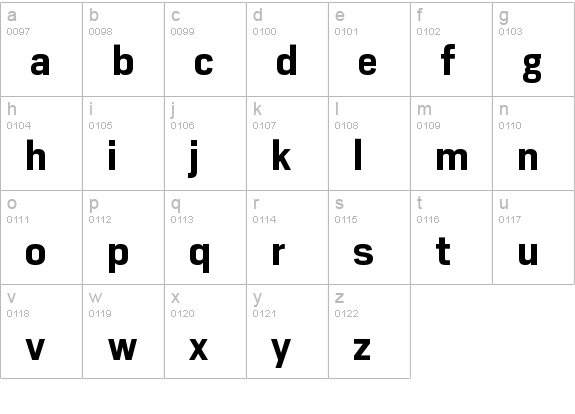
HeronSans SemiBold Font Details
HeronSans SemiBold is a sub-bold, structured variant in the HeronSans typeface family \xE2\x80\x94 well suited to sub-headlines and emphasised passages.
HeronSans SemiBold is a modern and versatile typeface that strikes the perfect balance between sophistication and approachability. With its clean lines and sturdy letterforms, this font exudes confidence and authority while remaining highly readable. The SemiBold weight adds a touch of boldness and emphasis, making it ideal for headlines, titles, and branding projects. What sets HeronSans SemiBold apart is not just its impeccable design, but also its accessibility. This font is available for free download at FontsMarket.com, allowing designers and creatives to easily incorporate it into their projects without any cost barriers. Whether you're working on a website, poster, or logo design, HeronSans SemiBold is a reliable choice that will elevate your work with its timeless aesthetic and professional appeal.